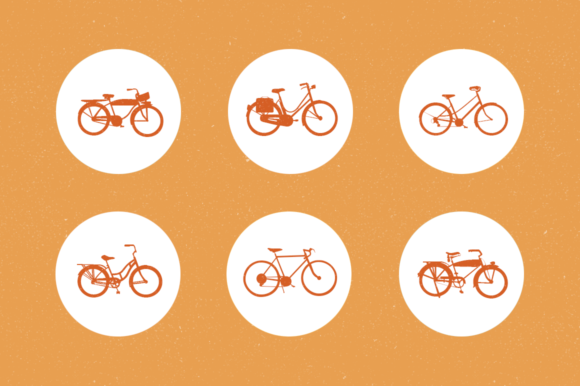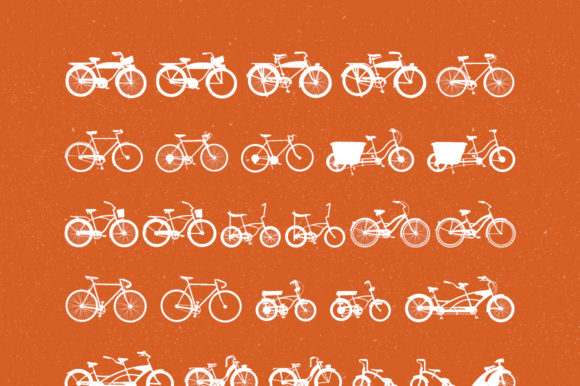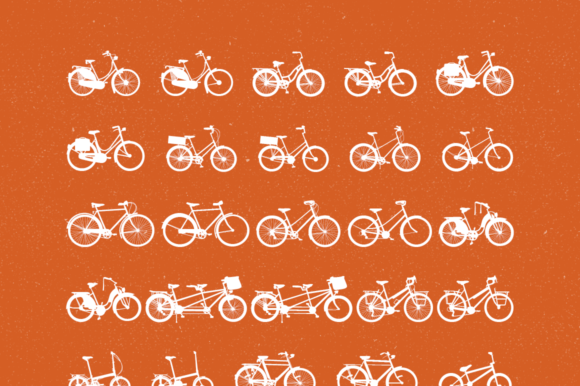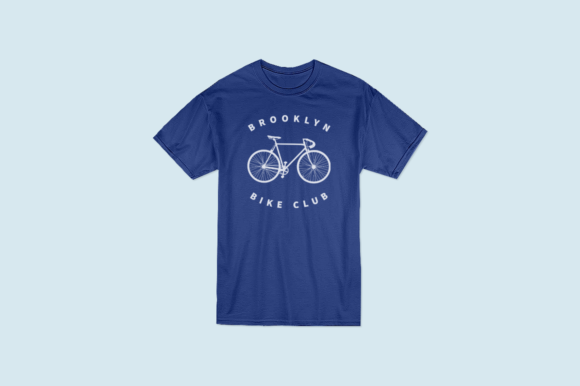
Bikes Font: A Cycling-Inspired Dingbat Font for Designers and Crafters
Are you a cycling enthusiast who loves to spend their free time designing bike-related projects? Look no further! The Bikes font is a unique dingbat font that is sure to delight designers and crafters alike. This font features detailed silhouettes of bicycles, making it perfect for creating bike-themed designs, from logos and posters to t-shirts and crafts.
What is the Bikes Font?
The Bikes font is a dingbat font that lives up to its name. The capital letters are detailed silhouettes of cycles, complete with intricate details and precision-crafted designs. The lowercase letters, on the other hand, are simplified versions of the bicycles, making them perfect for smaller uses such as captions, labels, or icons.
Features of the Bikes Font
- Detailed Silhouettes: The capital letters in the Bikes font feature detailed silhouettes of bicycles, complete with wheels, frames, and other intricate details.
- Simplified Lowercase: The lowercase letters are simplified versions of the bicycles, making them perfect for smaller uses.
- Unique Design: The Bikes font features a unique design that is sure to stand out in any design project.
- Versatile: The font is versatile and can be used in a variety of design projects, from logos and posters to t-shirts and crafts.
Uses for the Bikes Font
The Bikes font is perfect for designers and crafters who love cycling and want to create bike-themed designs. Here are some ideas for using the Bikes font:
- Logo Design: Use the Bikes font to create a logo for a bike shop, cycling club, or bike-related business.
- Poster Design: Create eye-catching posters for cycling events, bike festivals, or cycling-related promotions.
- T-Shirt Design: Design t-shirts, hoodies, or other cycling-themed apparel using the Bikes font.
- Crafting: Use the Bikes font to create bike-themed crafts, such as bike-shaped decorations, cycling-themed cards, or bike-inspired gifts.
Tips for Using the Bikes Font
Here are some tips for using the Bikes font in your design projects:
- Experiment with Sizes: Experiment with different font sizes to see how the Bikes font looks in different contexts.
- Combine with Other Fonts: Combine the Bikes font with other fonts to create a unique and eye-catching design.
- Use in Combination with Images: Use the Bikes font in combination with images of bicycles or cycling-related graphics to create a powerful design.
The Bikes font is a unique and versatile dingbat font that is perfect for designers and crafters who love cycling. With its detailed silhouettes of bicycles and simplified lowercase letters, this font is sure to delight anyone who loves bikes. Whether you’re creating a logo, poster, t-shirt, or craft, the Bikes font is a great choice. So why not give it a try and see what amazing designs you can create?